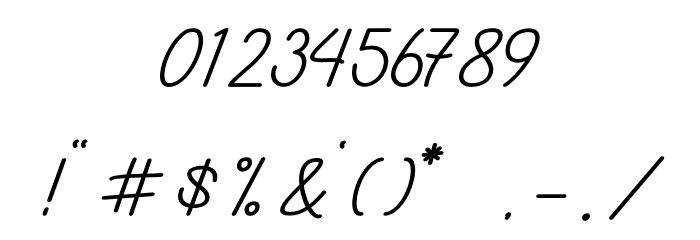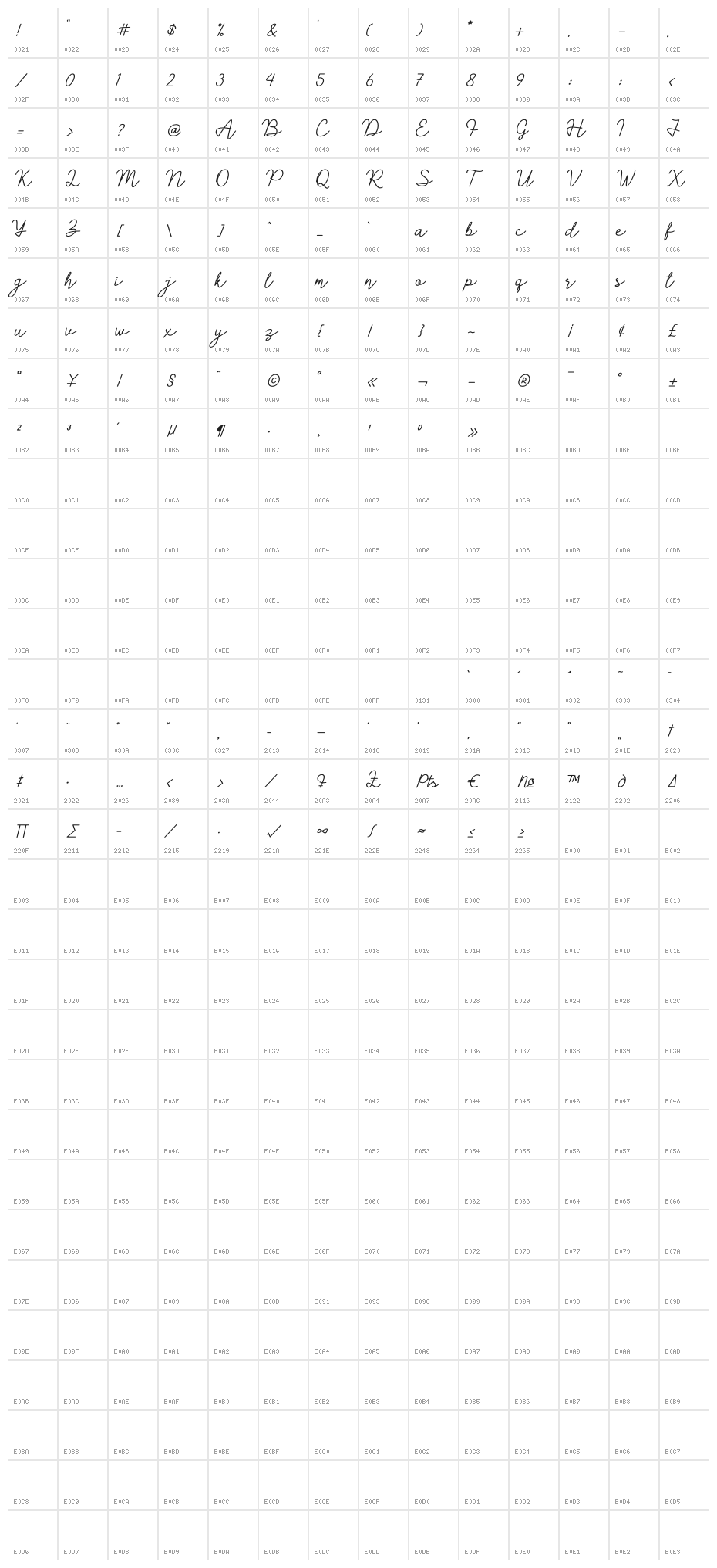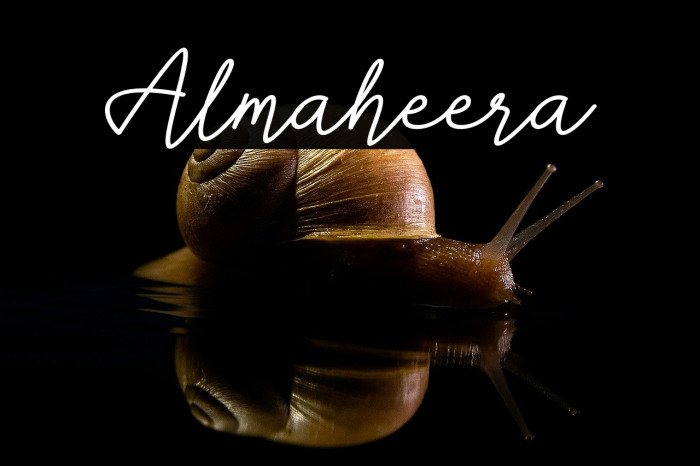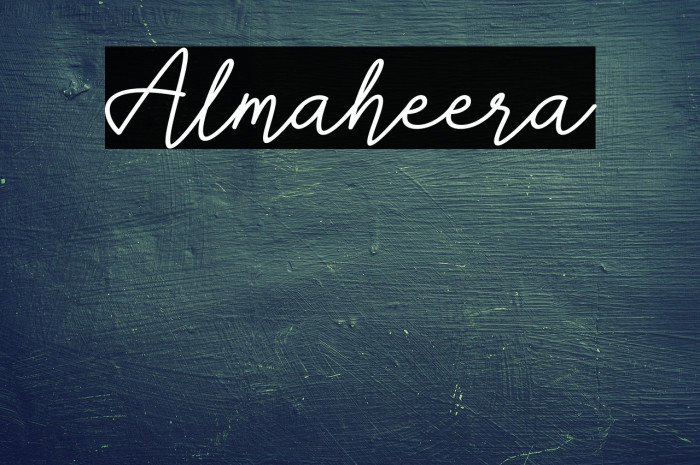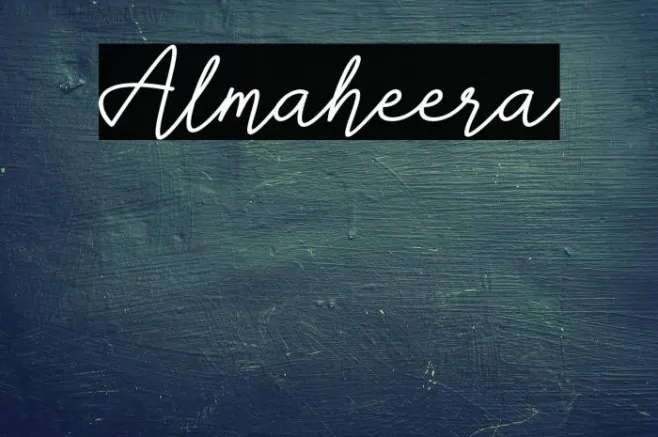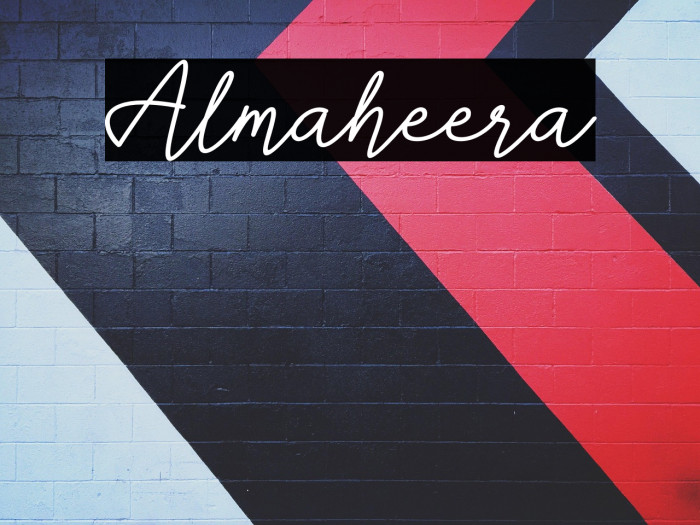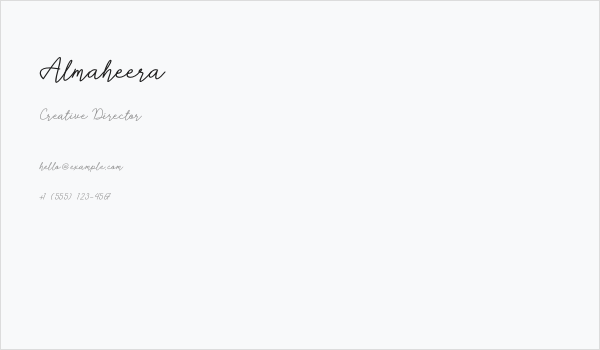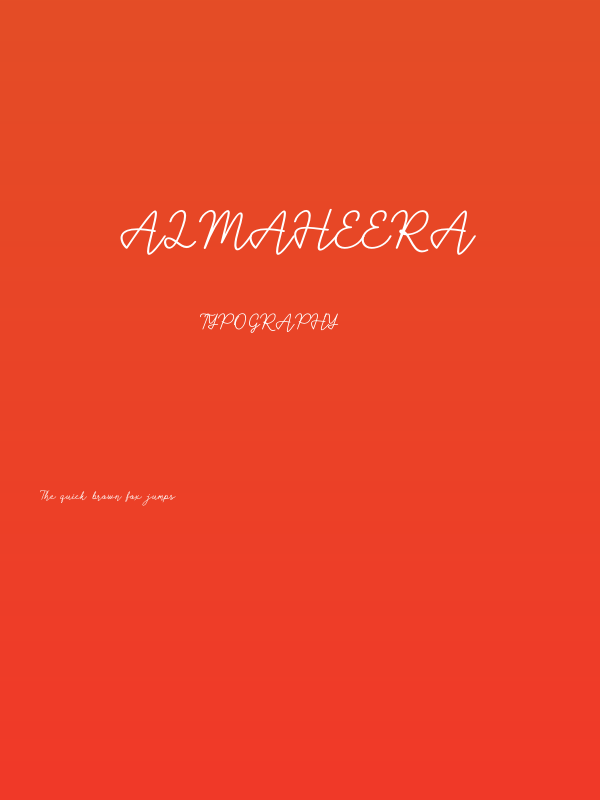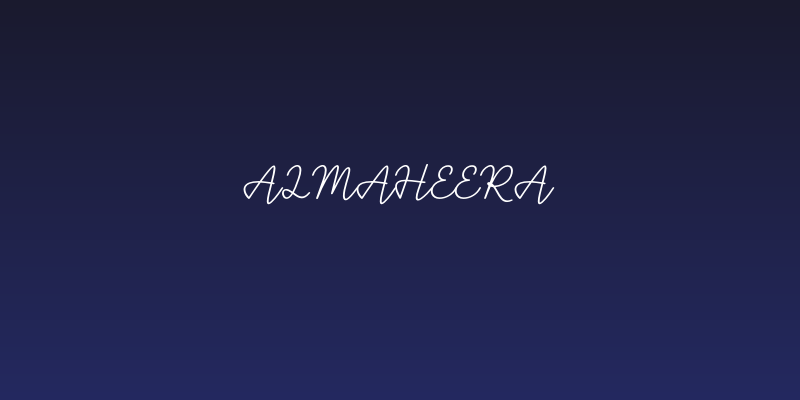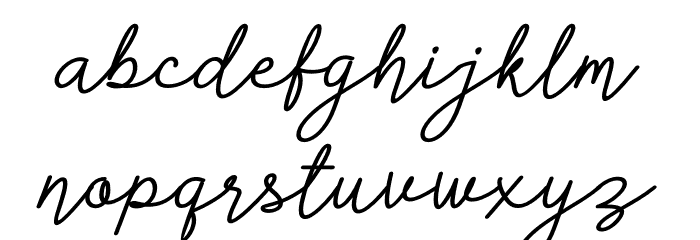
Almaheera Font
Almaheera Description
This elegant script font features a flowing, cursive style with smooth, connected strokes that mimic natural handwriting. The uppercase letters are slightly more ornate, with graceful loops and curves, while the lowercase letters maintain a consistent flow, enhancing readability. The numerals and special characters are designed to complement the overall aesthetic, maintaining the fluidity and elegance of the script. This font exudes a sense of sophistication and charm, making it ideal for projects that require a personal, handwritten touch.
Overall StyleElegant, Handwritten
Use CaseLogos, Invitations, Personal Branding
Proposed ProjectsIdeal for wedding invitations, greeting cards, personal branding, and elegant stationery.